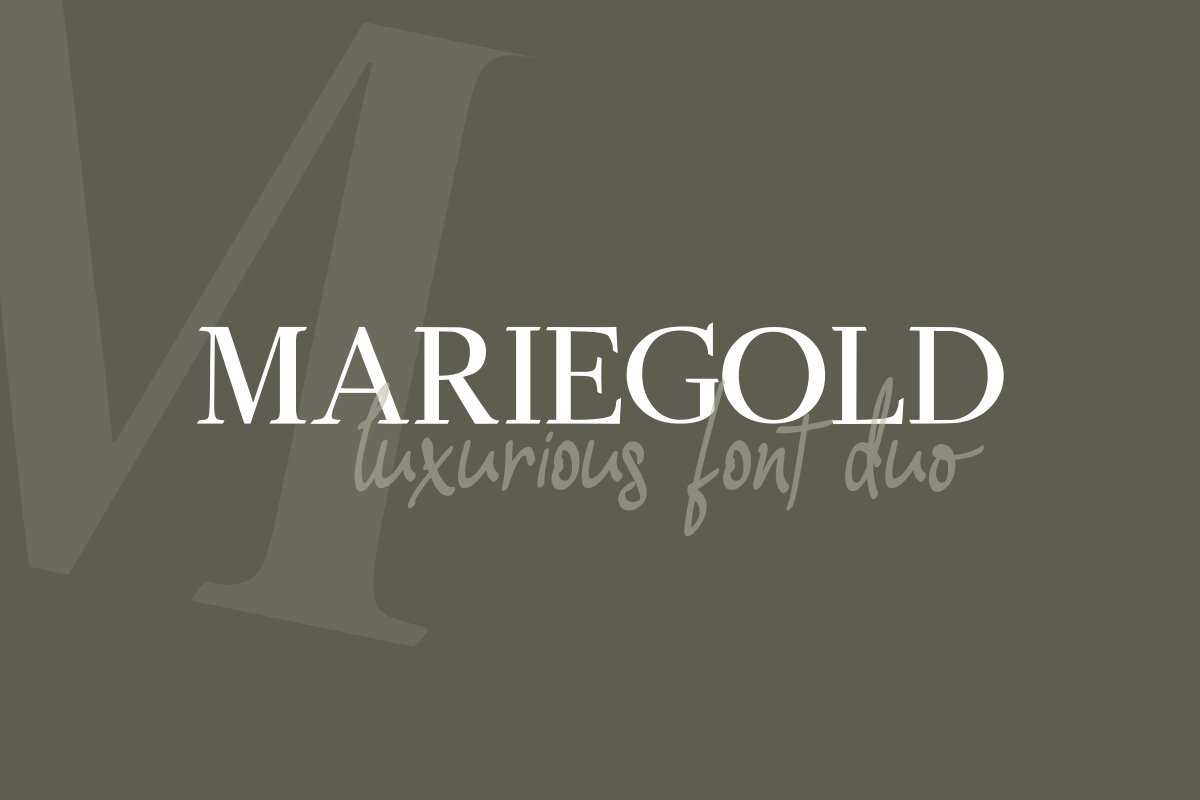
Mariegold Luxury Font Duo
Mariegold Serif
Mariegold Script
If you've got style and love all the elegance and luxuries in your life, this is Mariegold Luxury Font duo